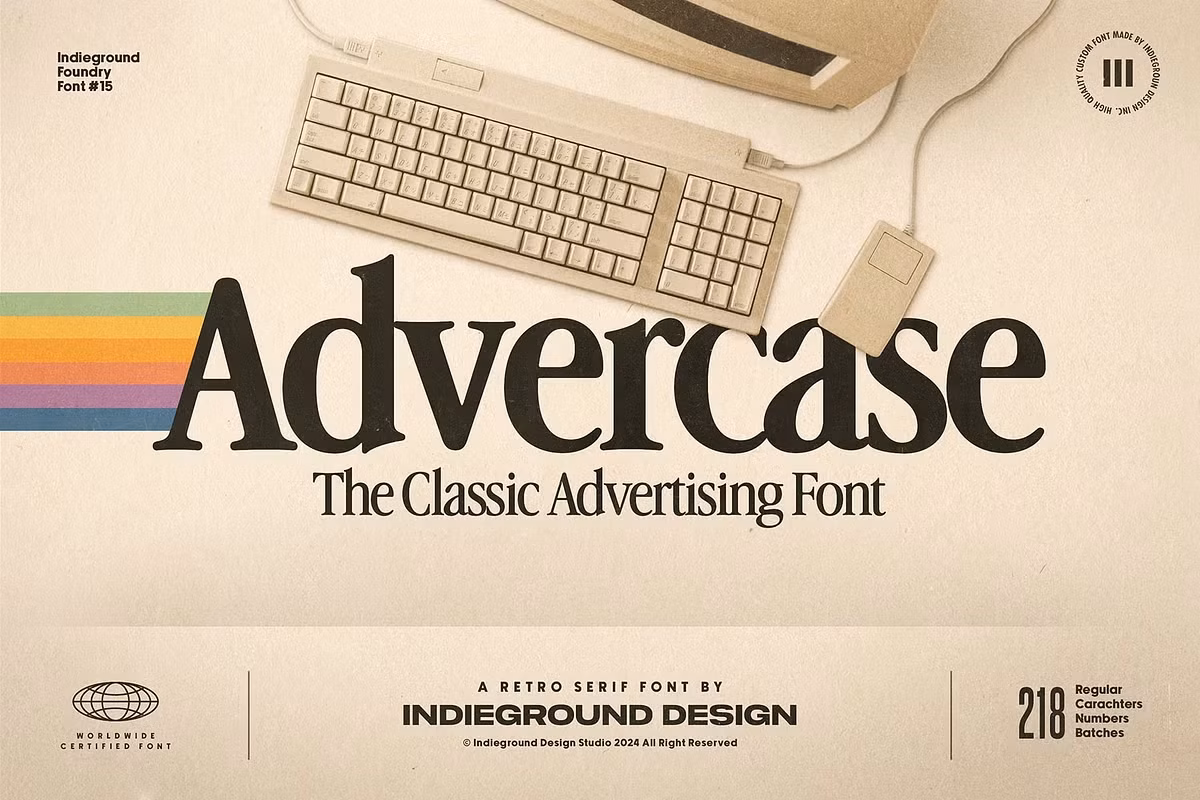
Advercase Font Free Download
Advercase Font Free Download is a bold and modern typeface designed to bring a strong presence to your designs. Featuring clean lines and geometric shapes, this font is perfect for creating impactful logos, branding, posters, advertisements, and social media content. Its sharp, structured design ensures clarity while maintaining a professional yet stylish look. Whether you're working on a corporate brand, a creative marketing campaign, or a high-energy event, Advercase Font Free Download lets you experiment with its powerful design in personal projects before purchasing a commercial license. Add strength and modernity to your designs with this beautifully crafted font.